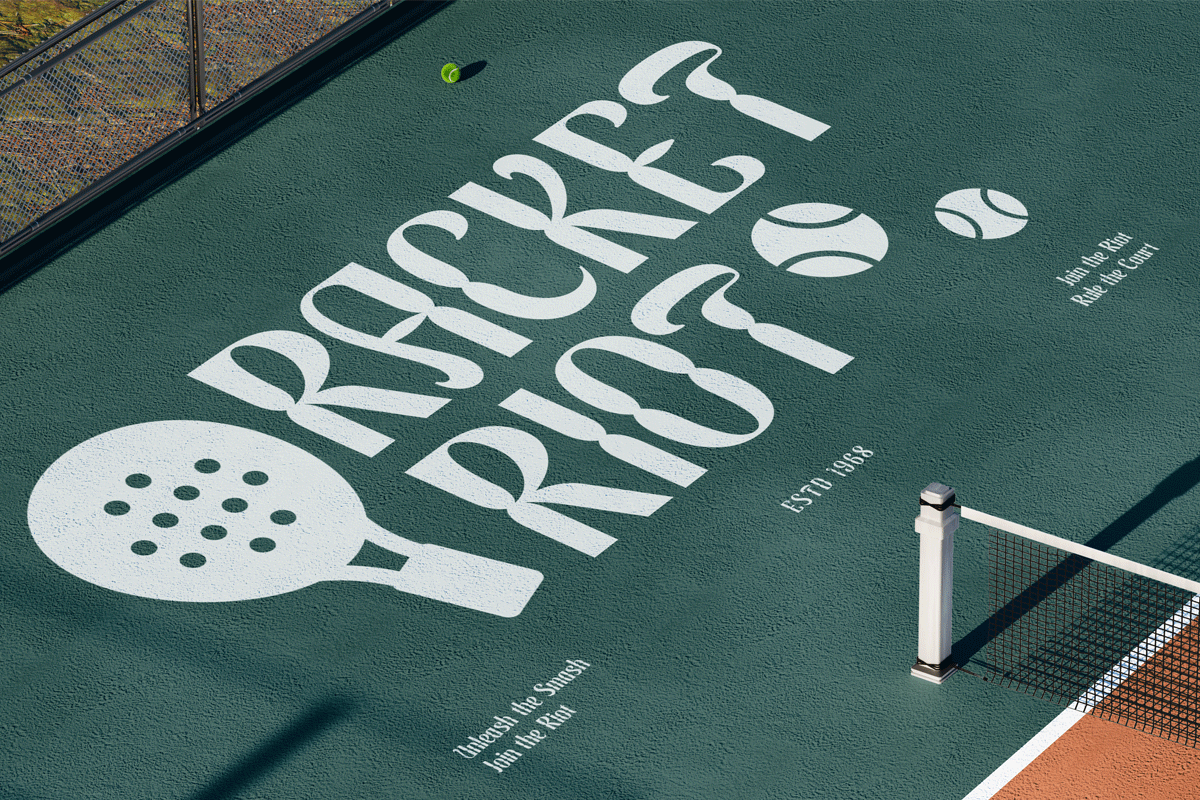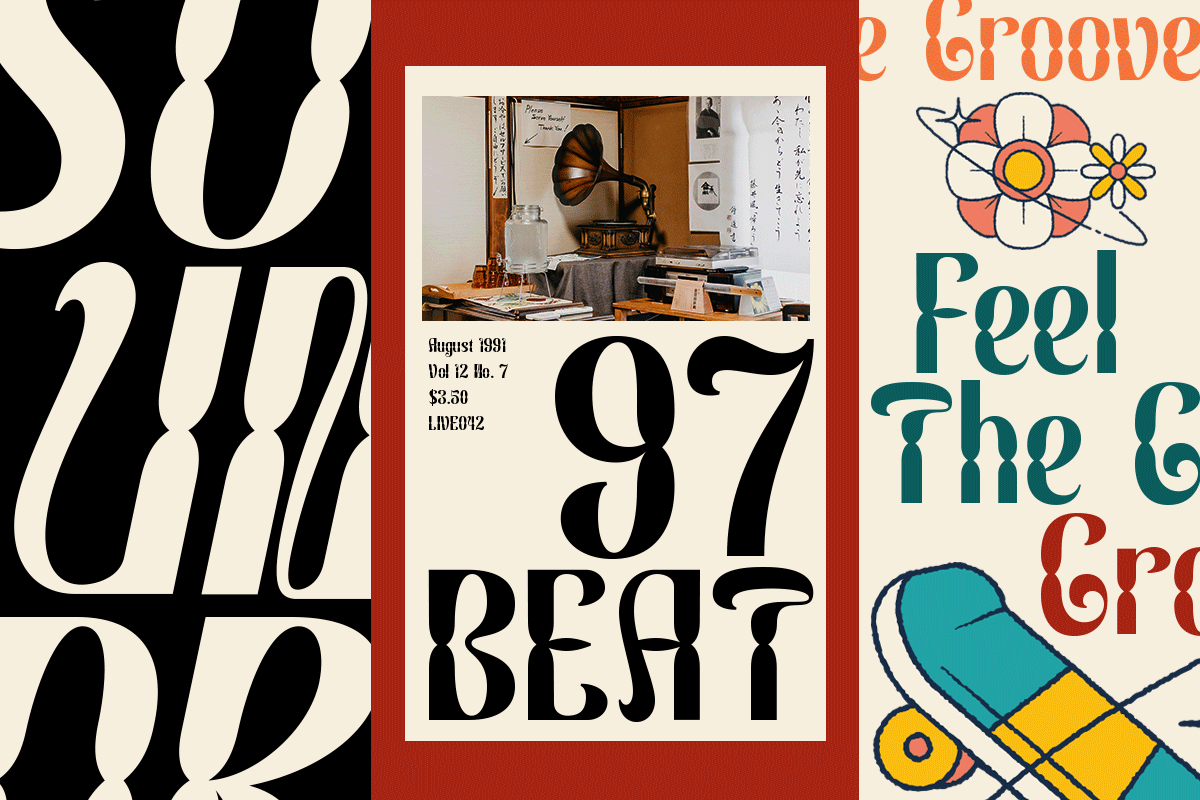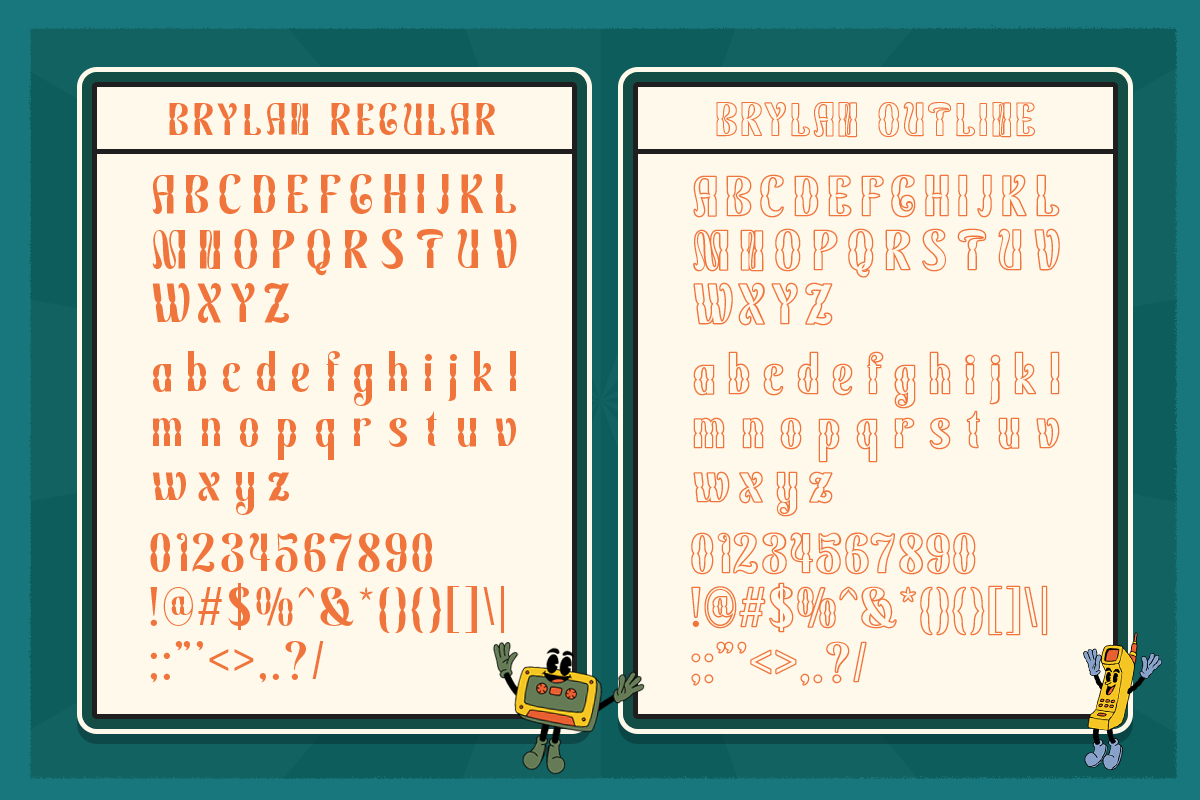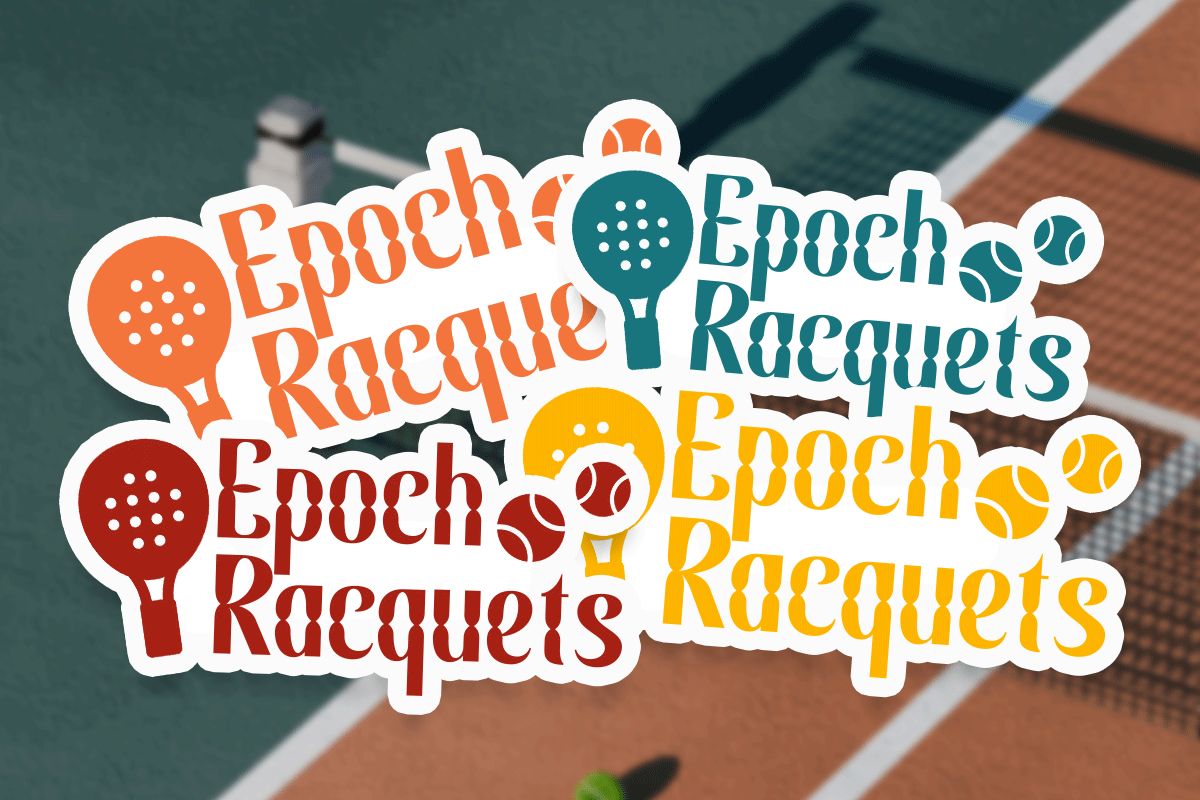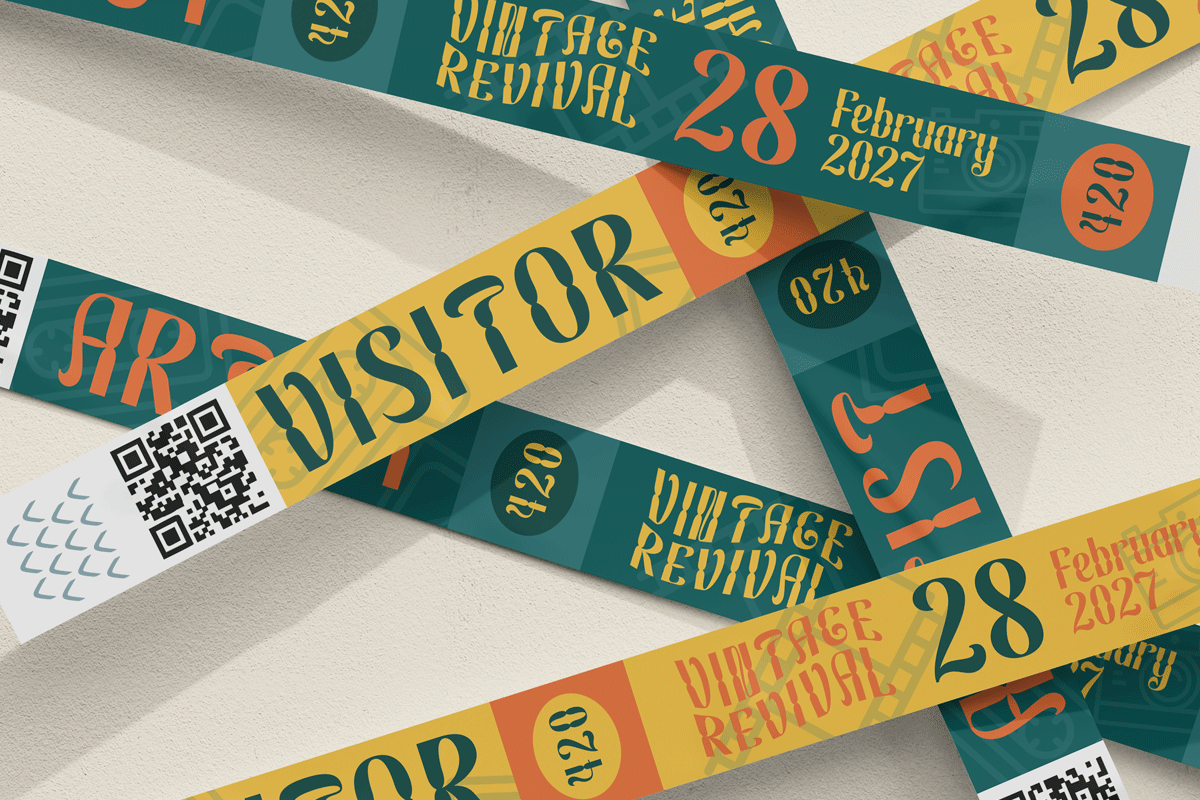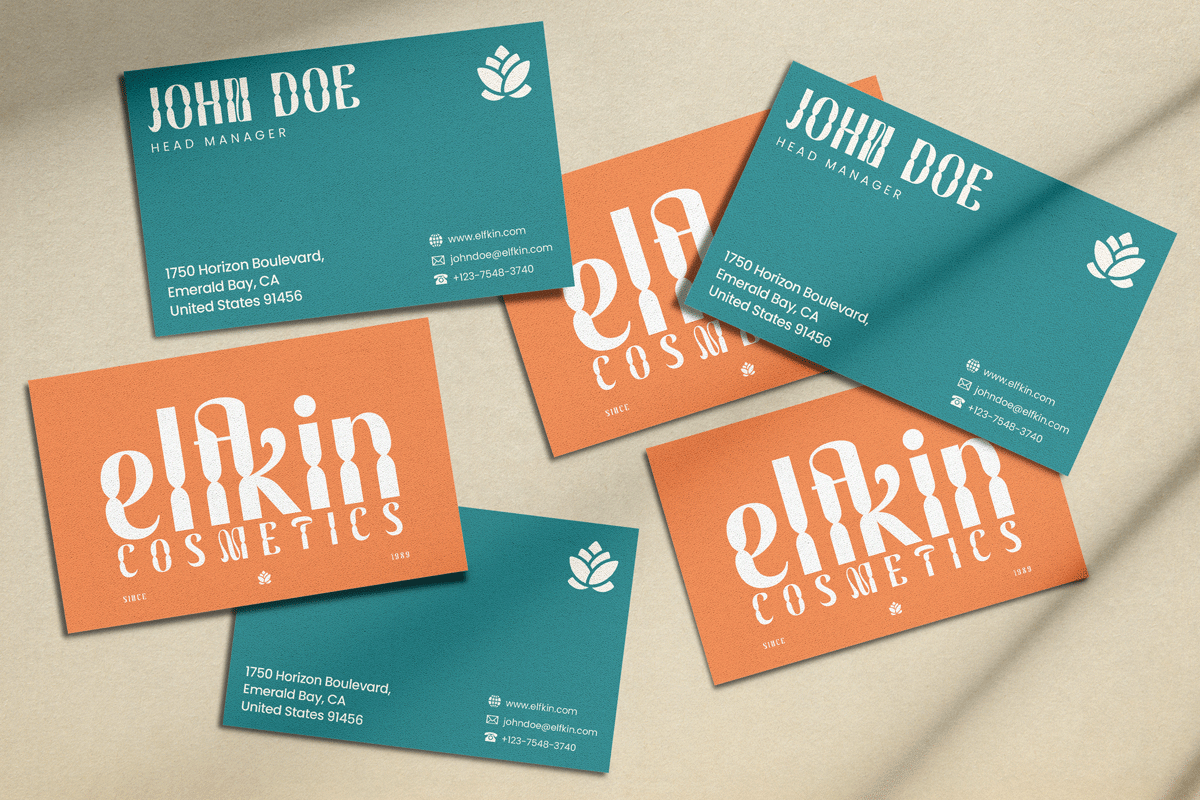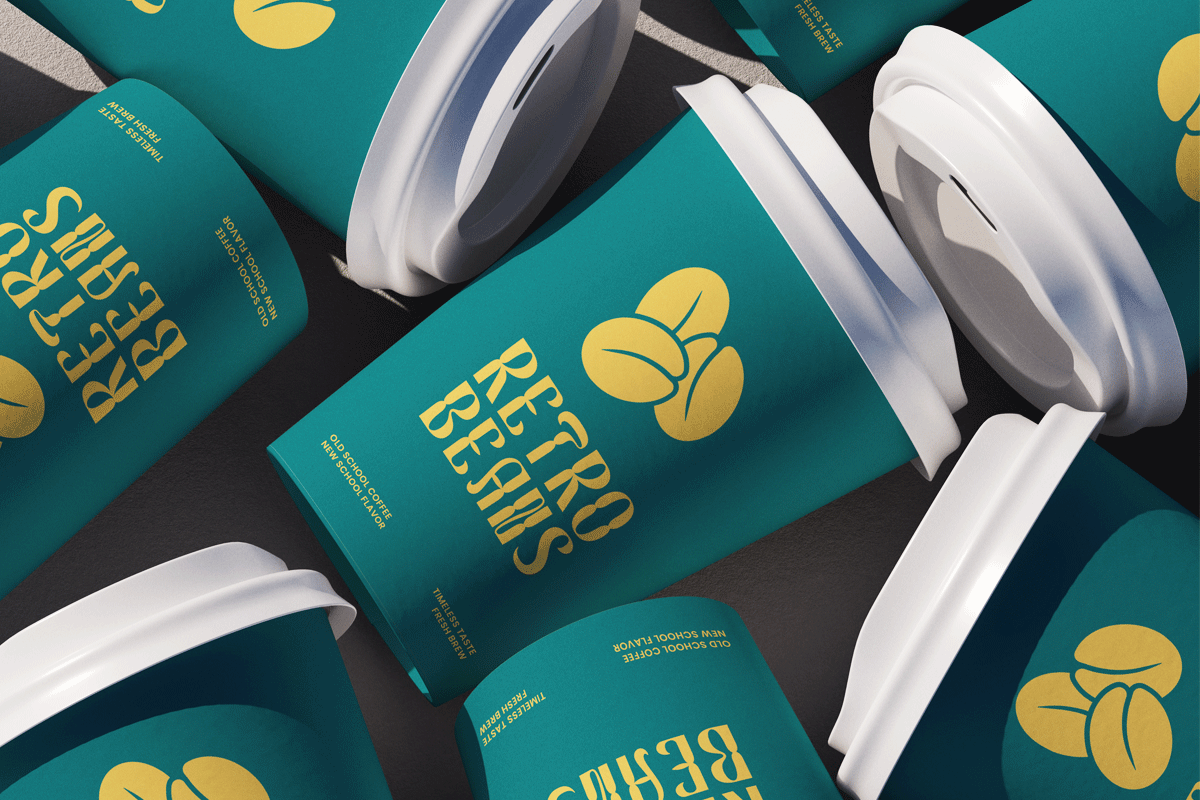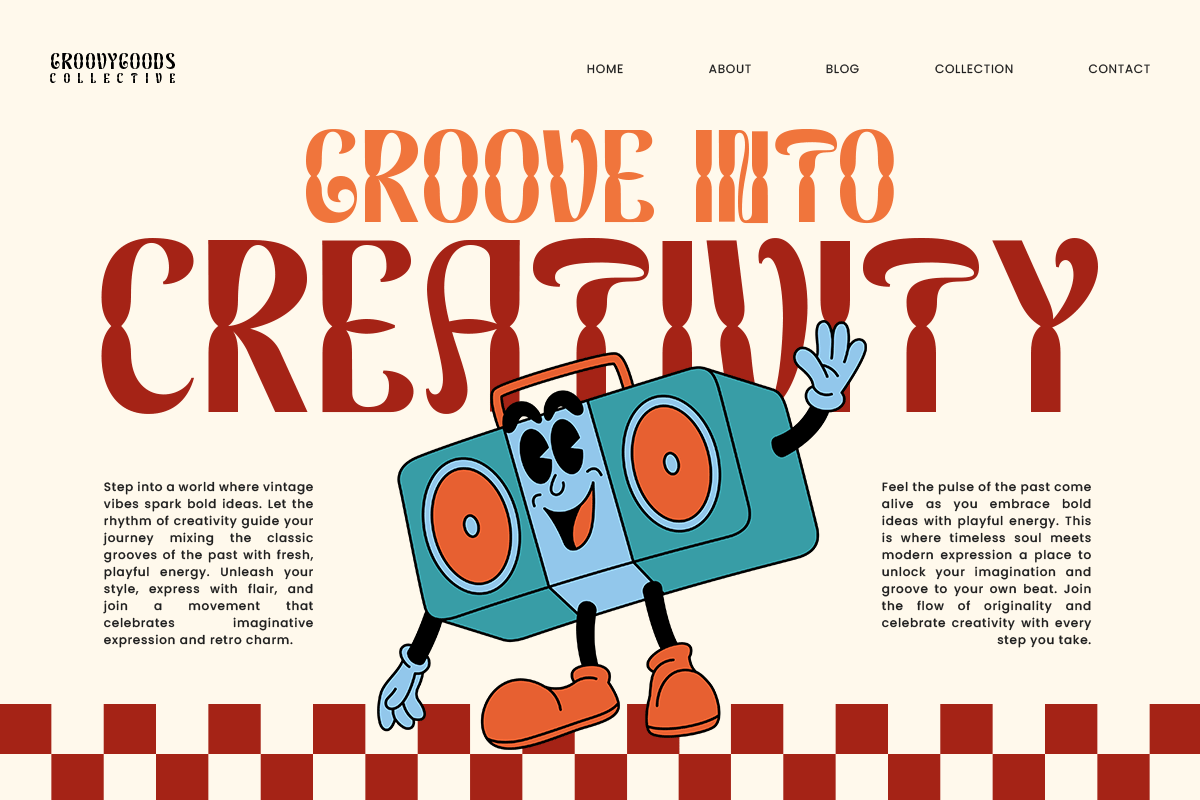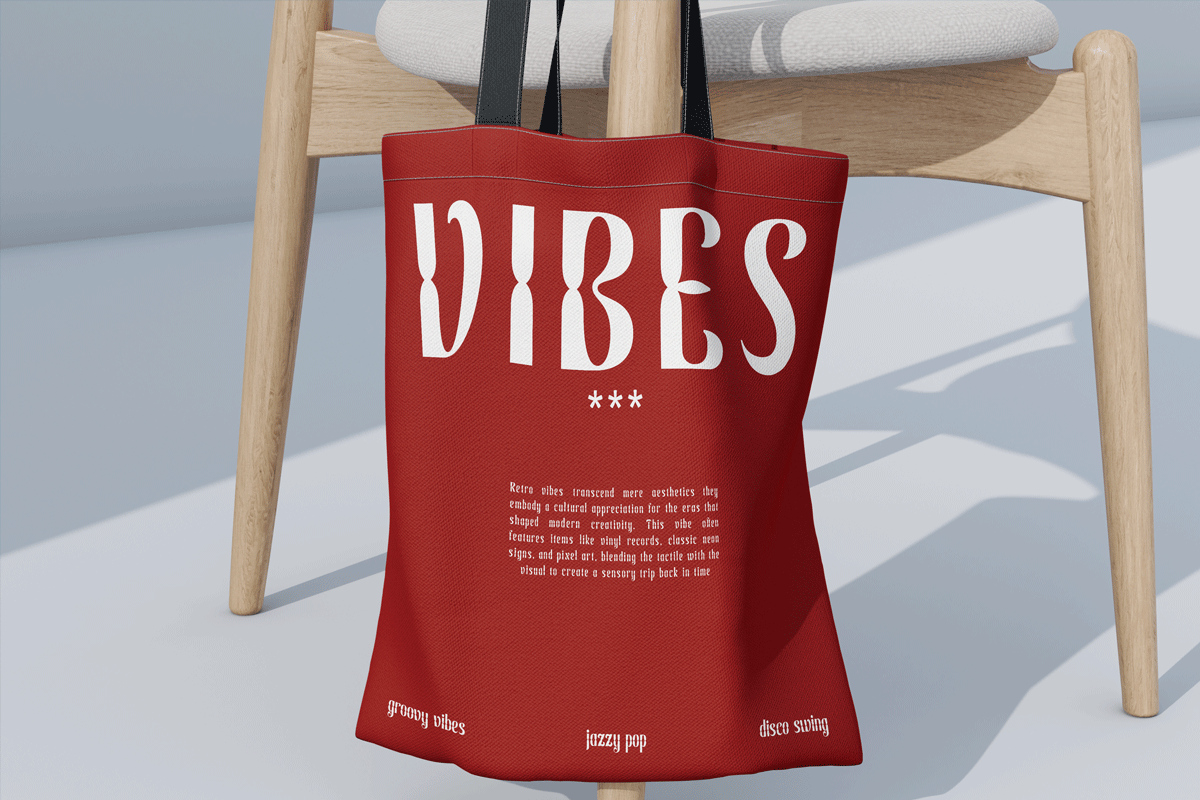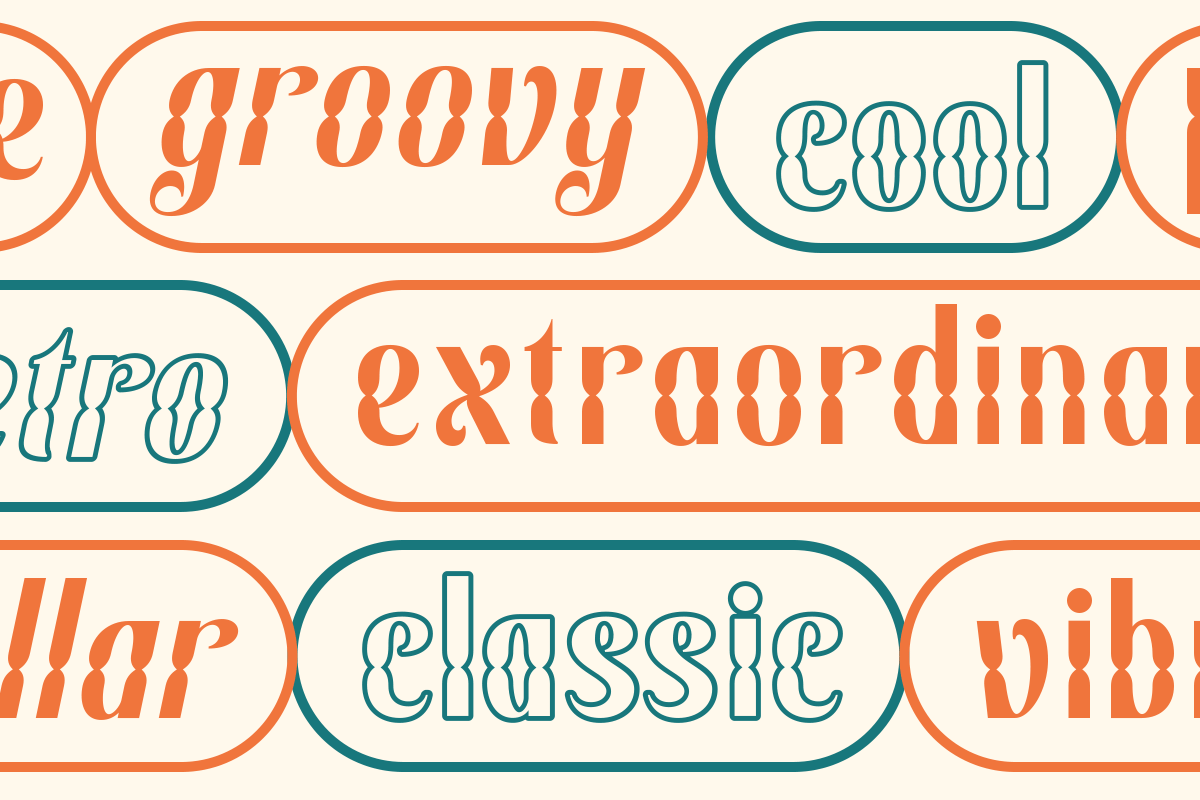
Brylan – A Retro Modern Display Sans
Brylan is a retro-inspired display sans font that combines geometric precision with playful character. Designed to evoke 70s modernism, it delivers strong visual presence and timeless readability ideal for logos, posters, packaging, and editorial layouts.
- Bold geometric sans design
- Smooth kerning and balance
- Retro-modern aesthetic